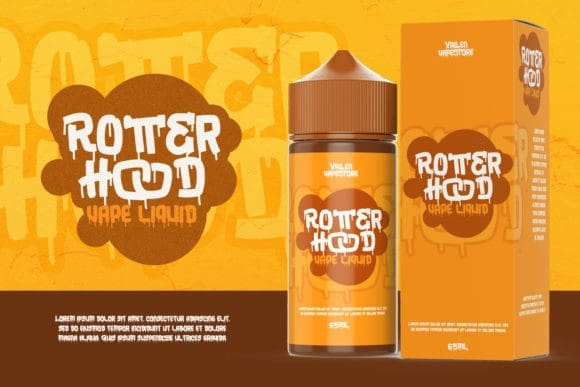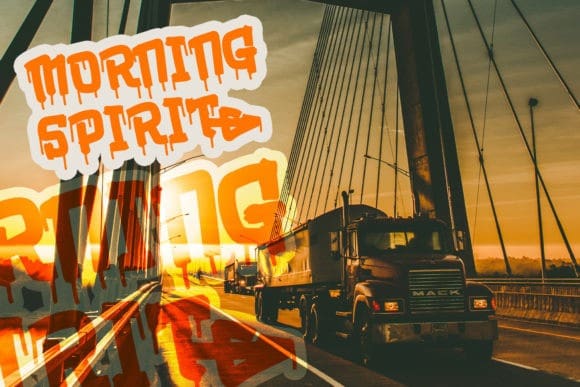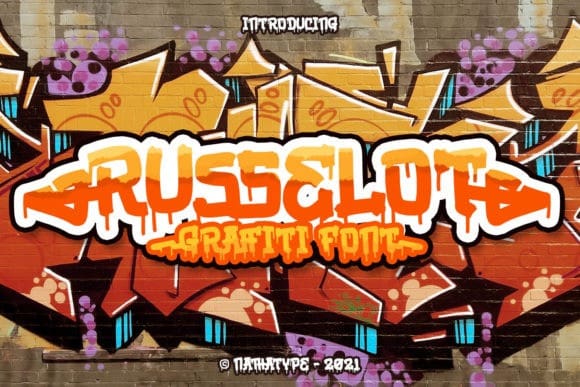
Russelot Display Font
Russelot Display Font, is an assertive graffiti styled display font, that features a street art vibe. This font is suitable for designs like jerseys, sportswear, skateboard and more.